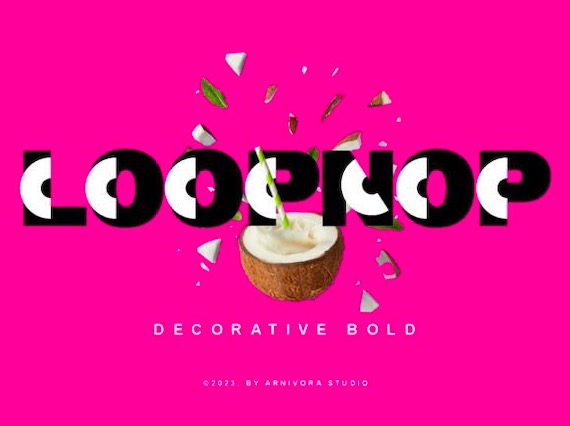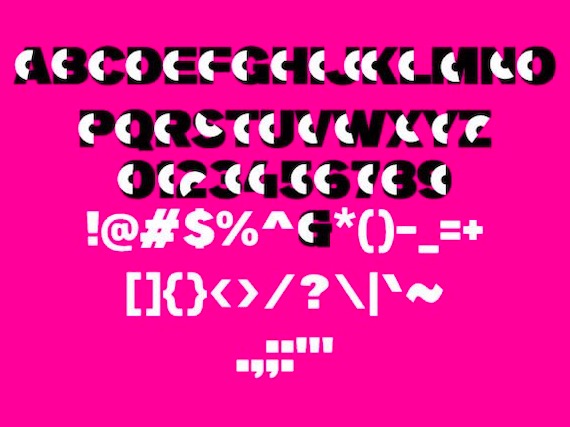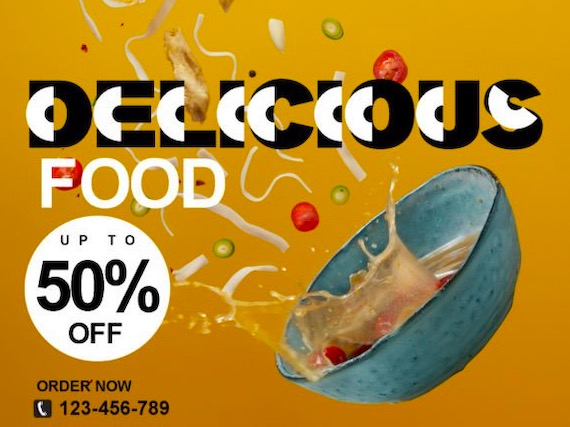
Loopnop is an elegant and casual display font with a unique decorative style. So perfect for you who needs a typeface for logo designs, magazine, social media, brochure, and many more.
Loopnop Decorative Display Font
Designer, Publisher: Artnivora Std